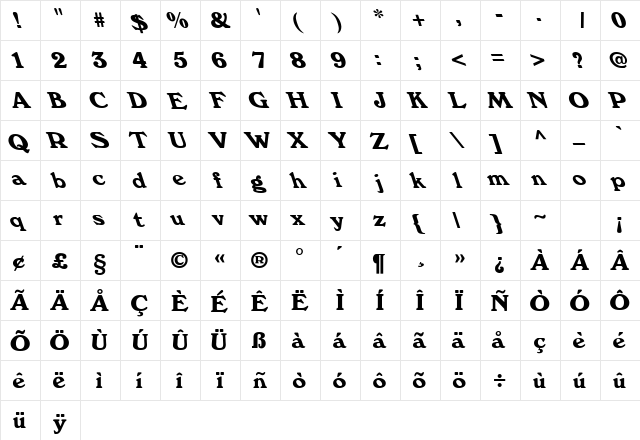
Windsor Demi.fog Lefti Regular
Design Context for Windsor Demi.fog Lefti Typeface
Windsor Demi.fog Lefti offers clean, dependable letterforms without strong stylistic allegiance, making it a practical choice for designers who need flexibility.